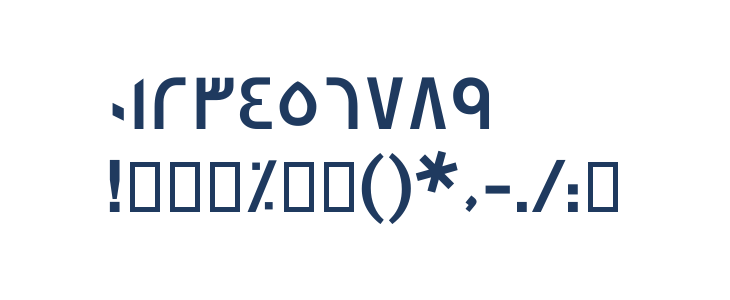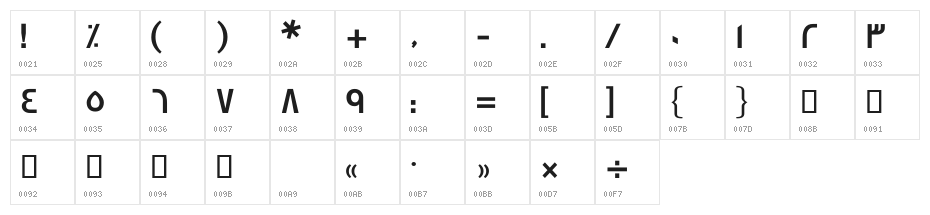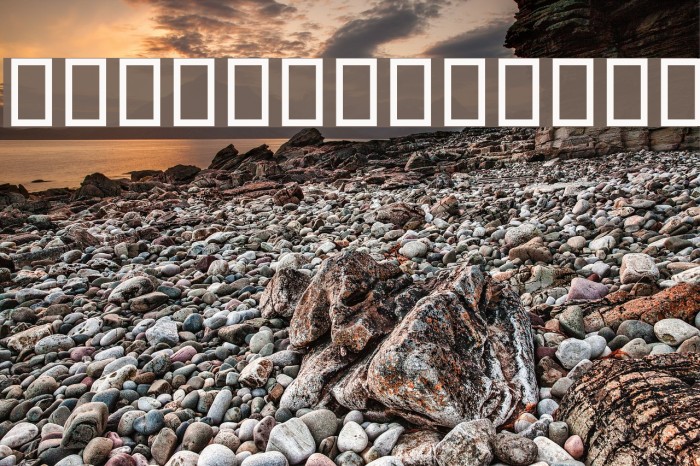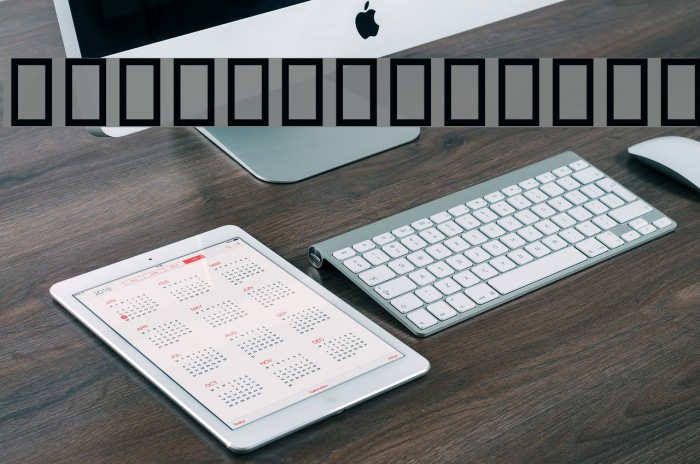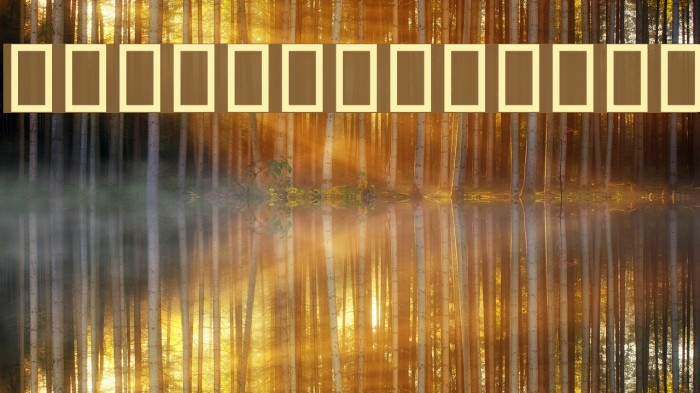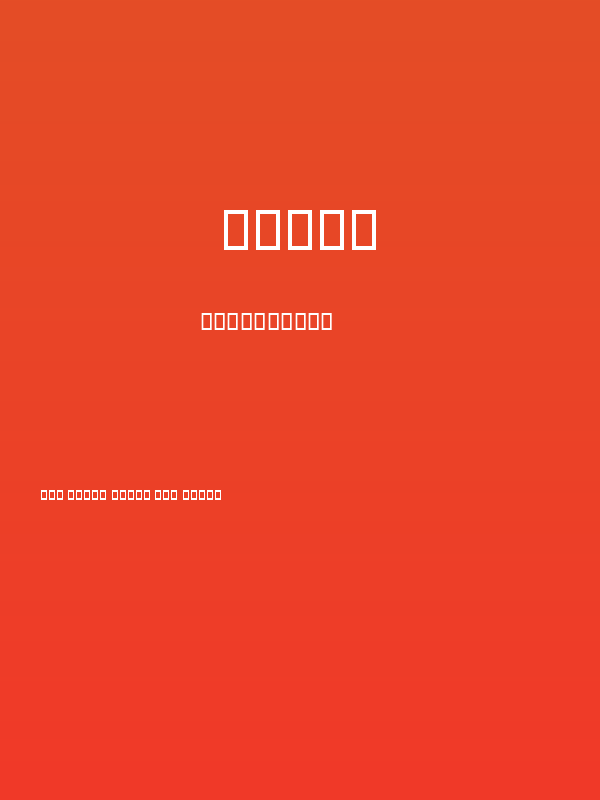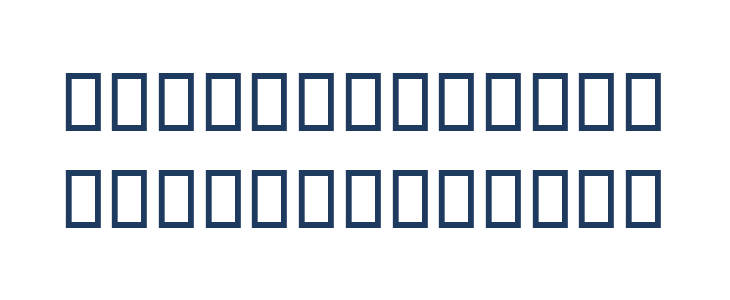
Zibaa Font
Zibaa Description
This font features a bold and modern design with a geometric structure. The characters are crafted with clean lines and a uniform stroke width, giving it a contemporary and professional appearance. The numerals and special characters maintain the same geometric style, ensuring consistency across all elements. The font's design is highly legible, making it suitable for various applications where clarity is essential. Its boldness and simplicity make it a versatile choice for both digital and print media.
| Use Case | Headlines, Logos, Digital interfaces |
| Proposed Projects | Ideal for branding, advertising, headlines, and digital interfaces. |